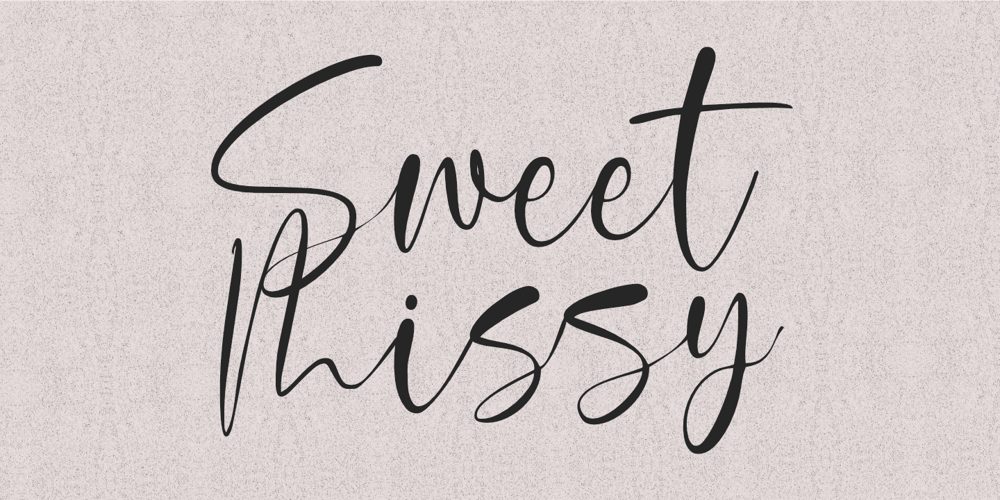
Sweet Missy Font Family was designed by Nurul Hidayani and published by Olivetype. Sweet Missy contains 1 styles and family package options. With its modern calligraphy script style, Sweet Missy is perfect for adding a touch of elegance to logos, branding, and more. Its stylish yet simple design makes it versatile and easy to use for a variety of projects.So what’s included : Basic Latin Uppercase and Lowercase Numbers, symbols, and punctuations Ligatures. Multilingual Support. PUA Encoded and fully accessible without additional design software Simple Installations Works on PC & Mac Thank You.